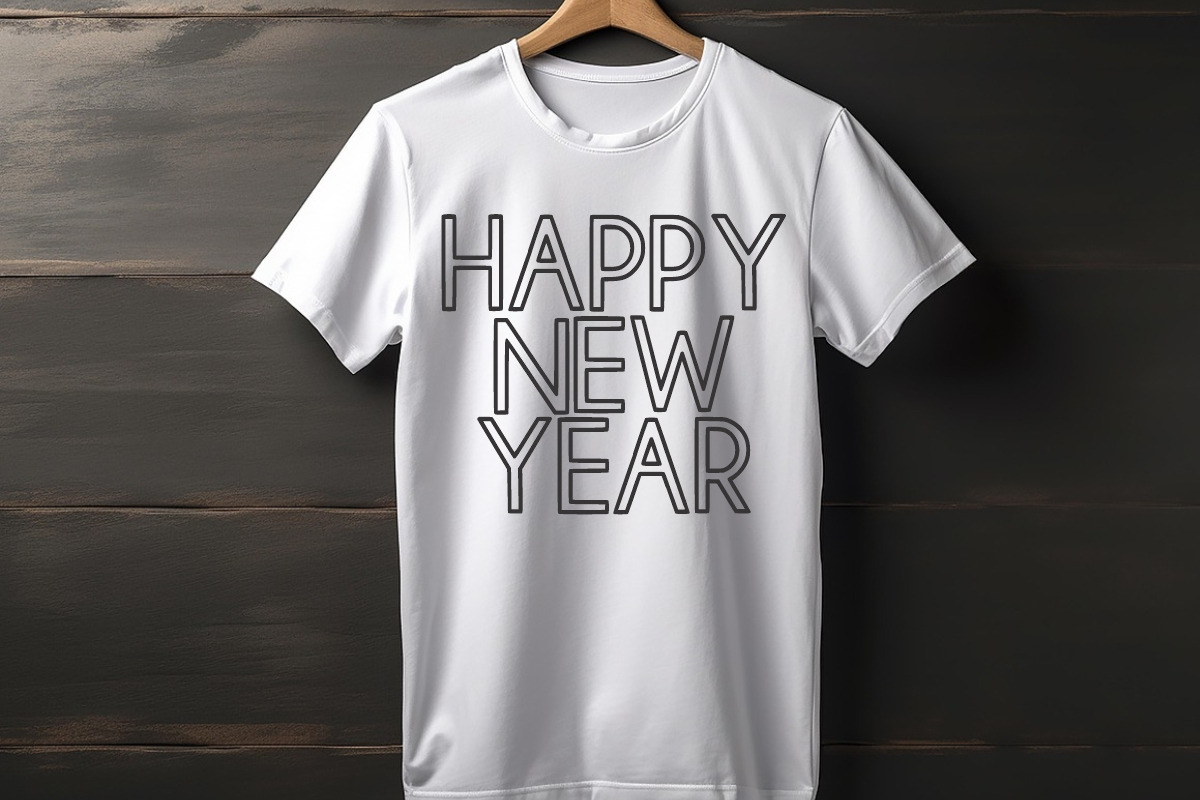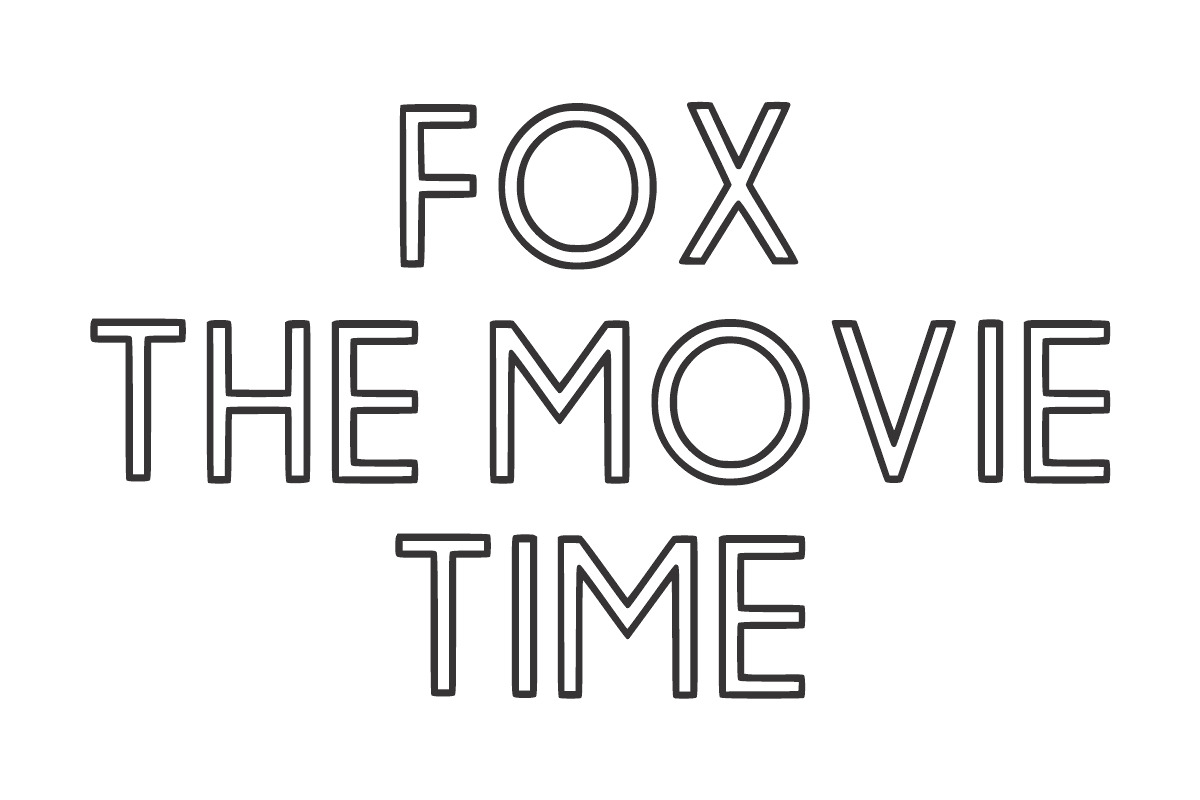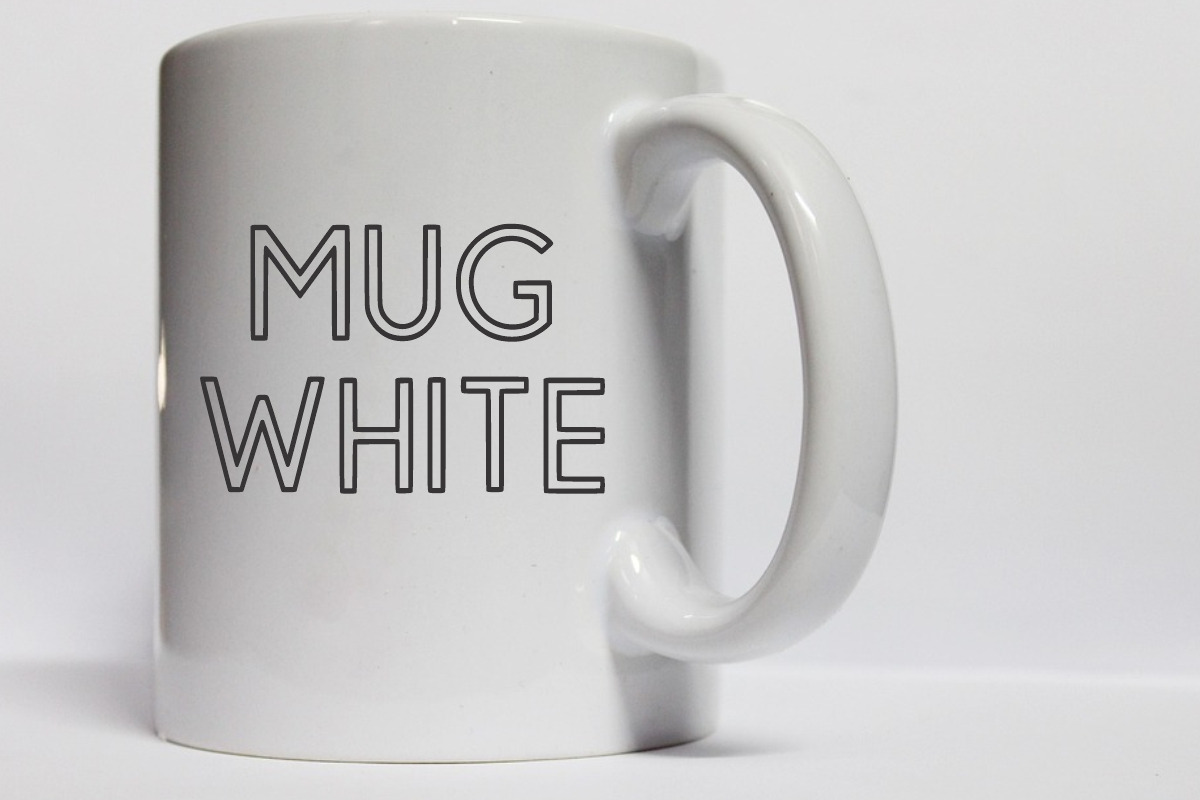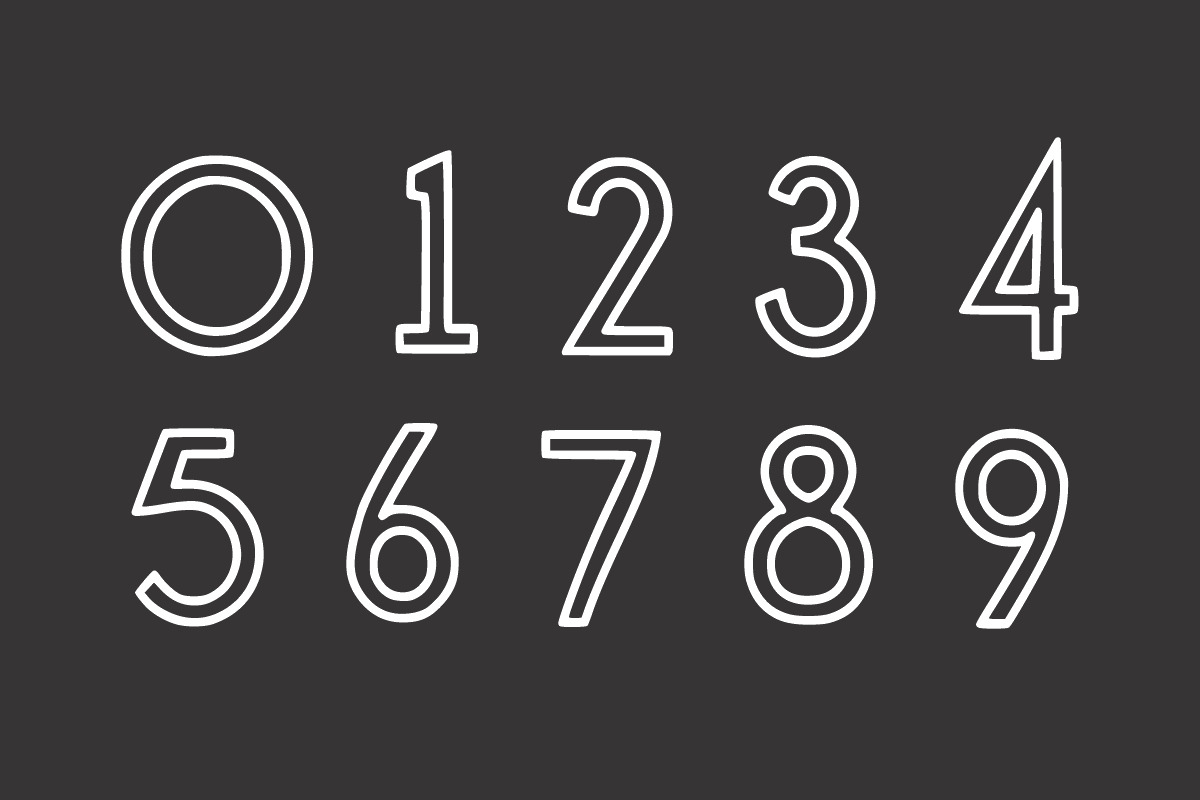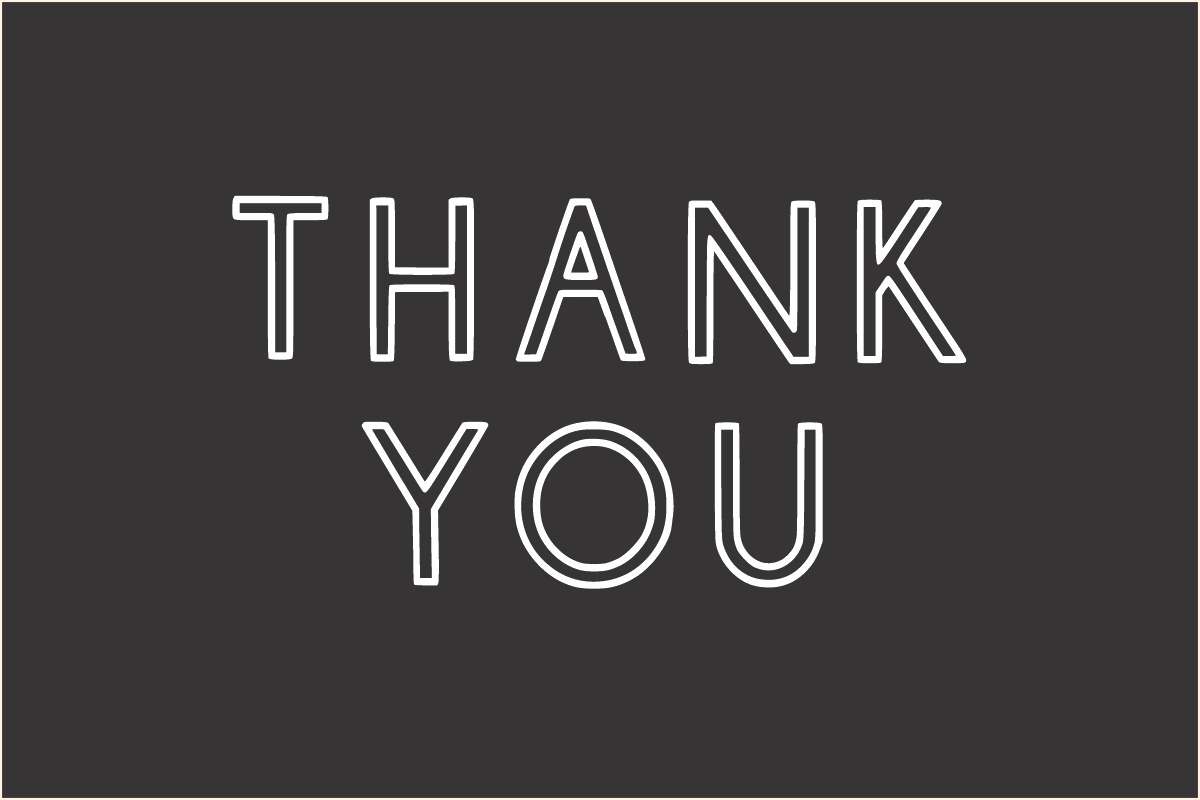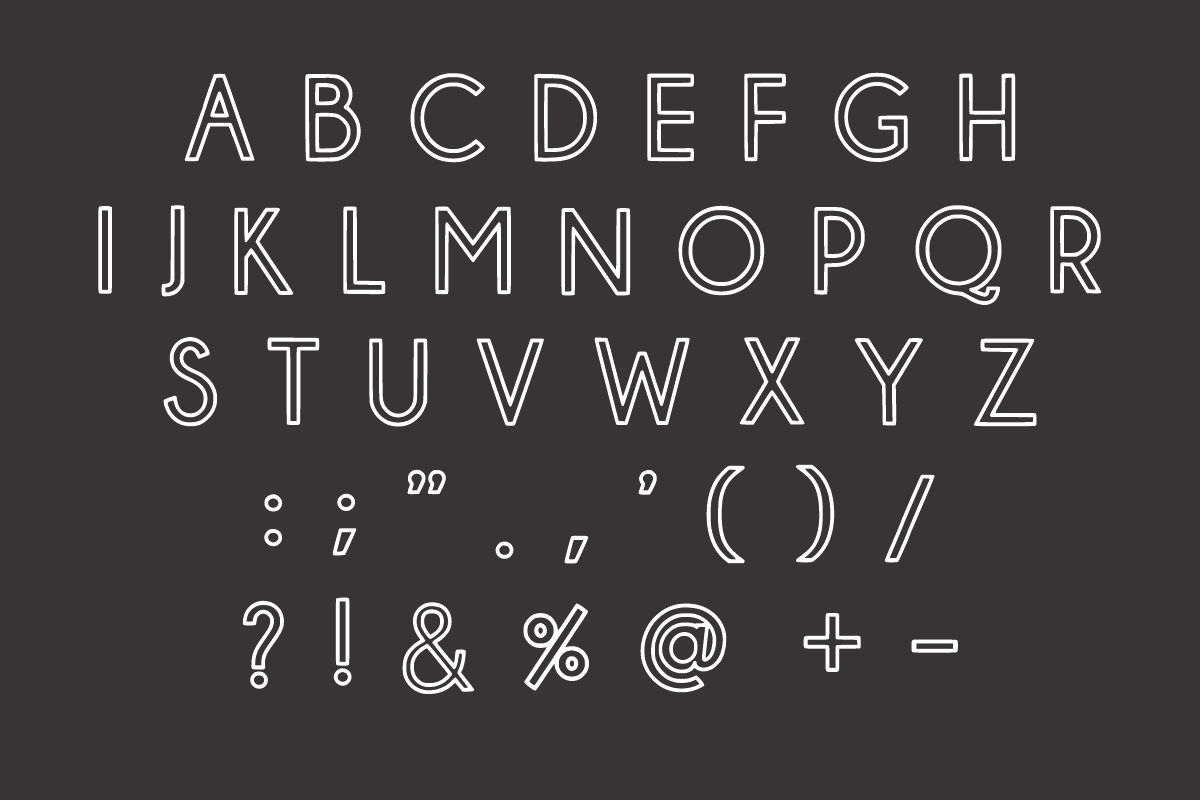
Minimal Line Art
Minimal Line Art is a minimalist and outline display font with rounded lettering. It is suitable for any winter and holiday branding project, product packaging, invitations, quotes, t-shirts, labels, posters, or anything that needs a touch of joy.